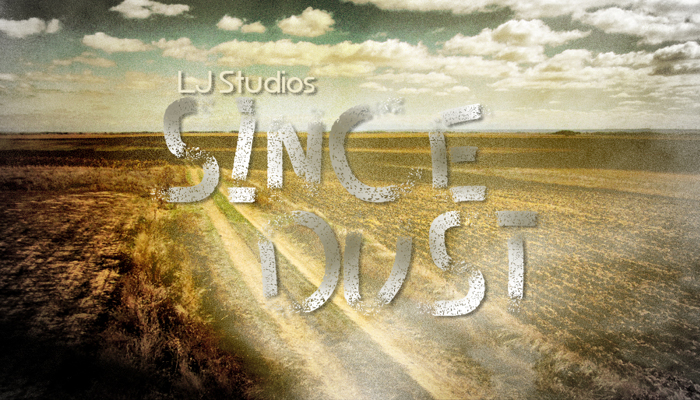
Since dust Font
Grunge Style
Designed by Luis Jaramillo, joined by Luis Rozales.
Design distorted with powder brush, letters in different sizes and symmetries for urban compositions or for heavy metal rock.
Diseñado por Luis Jaramillo, Ensamblada por Luis Rózales.
Diseño distorsionado con pincel de polvo, letras en distintos tamaños y simetrías para realizar composiciones urbanas o para el rock metal heavy.